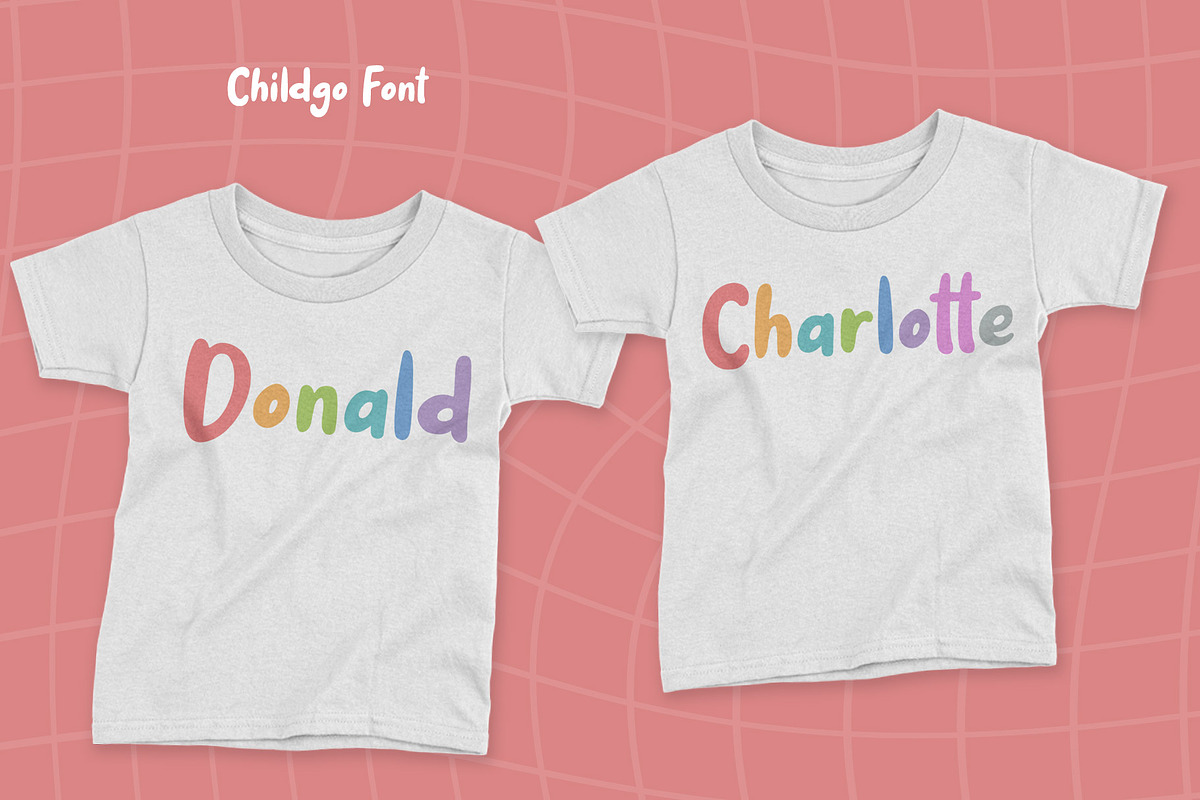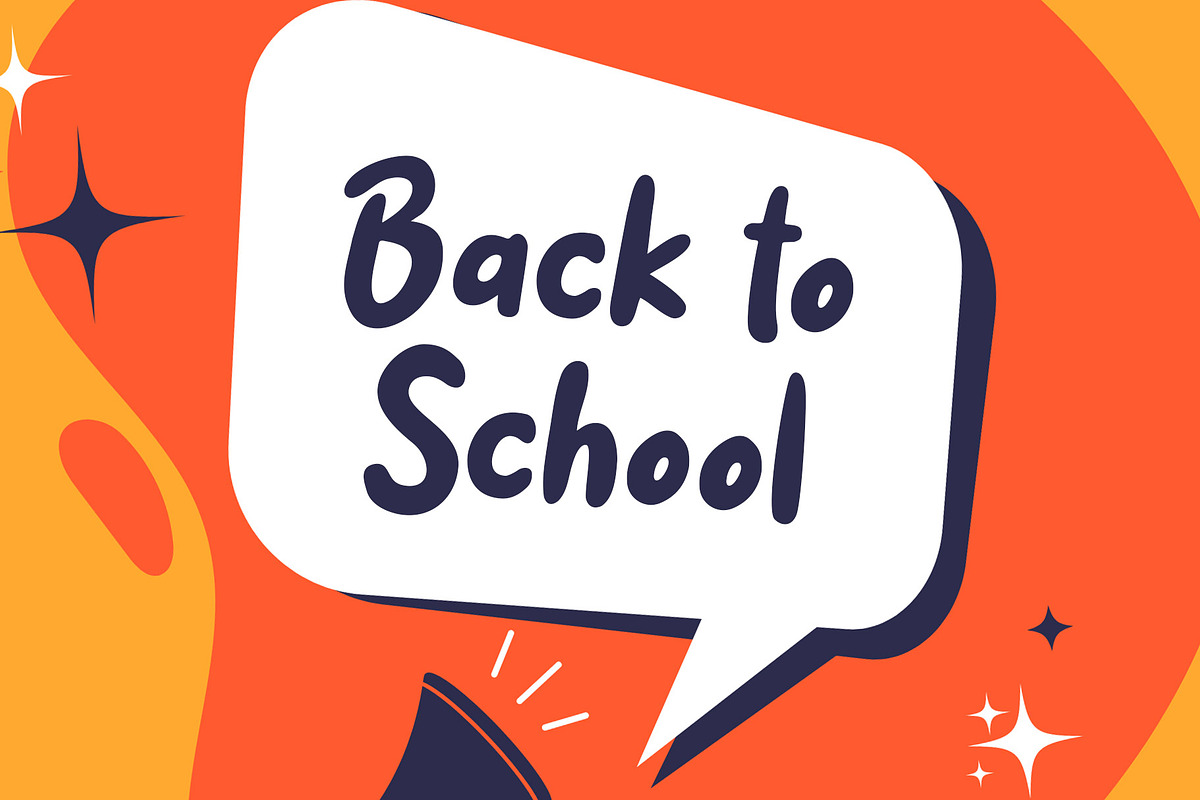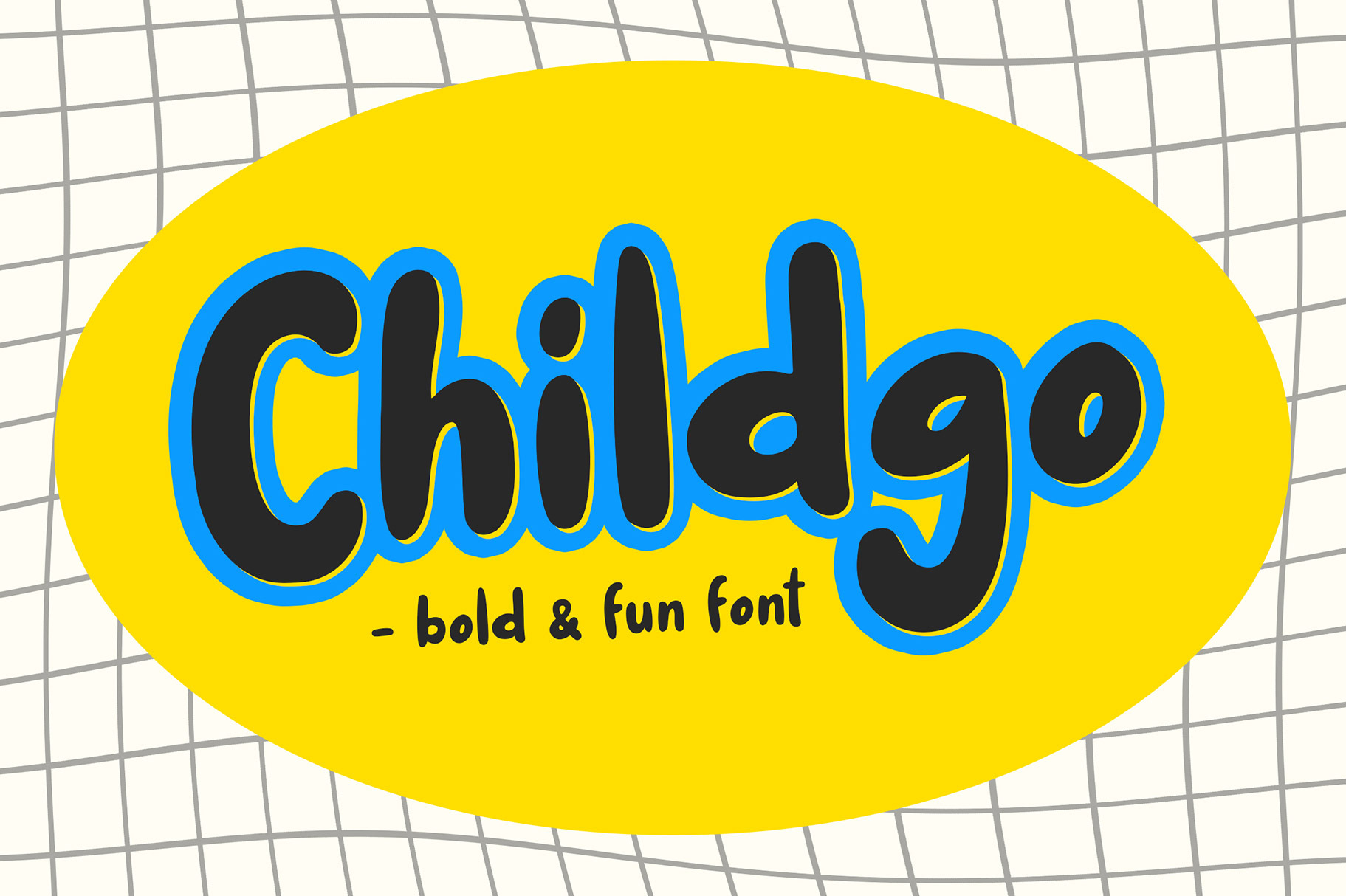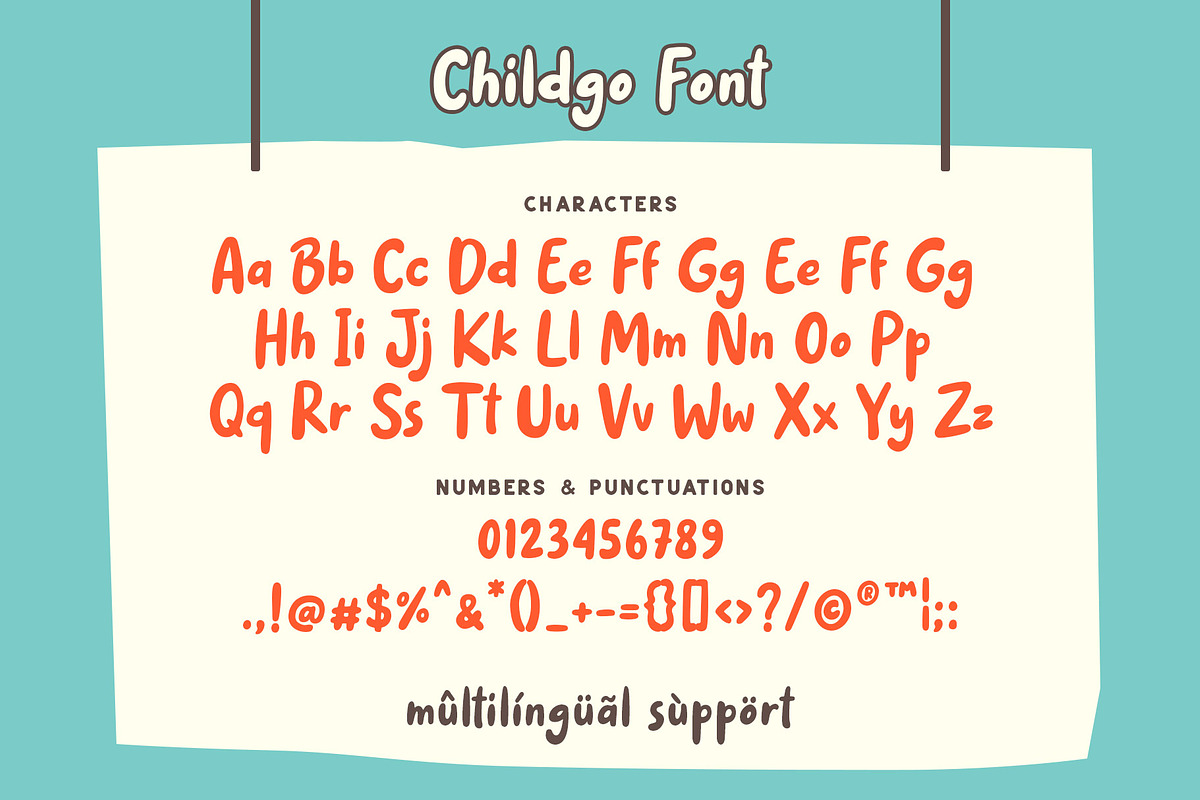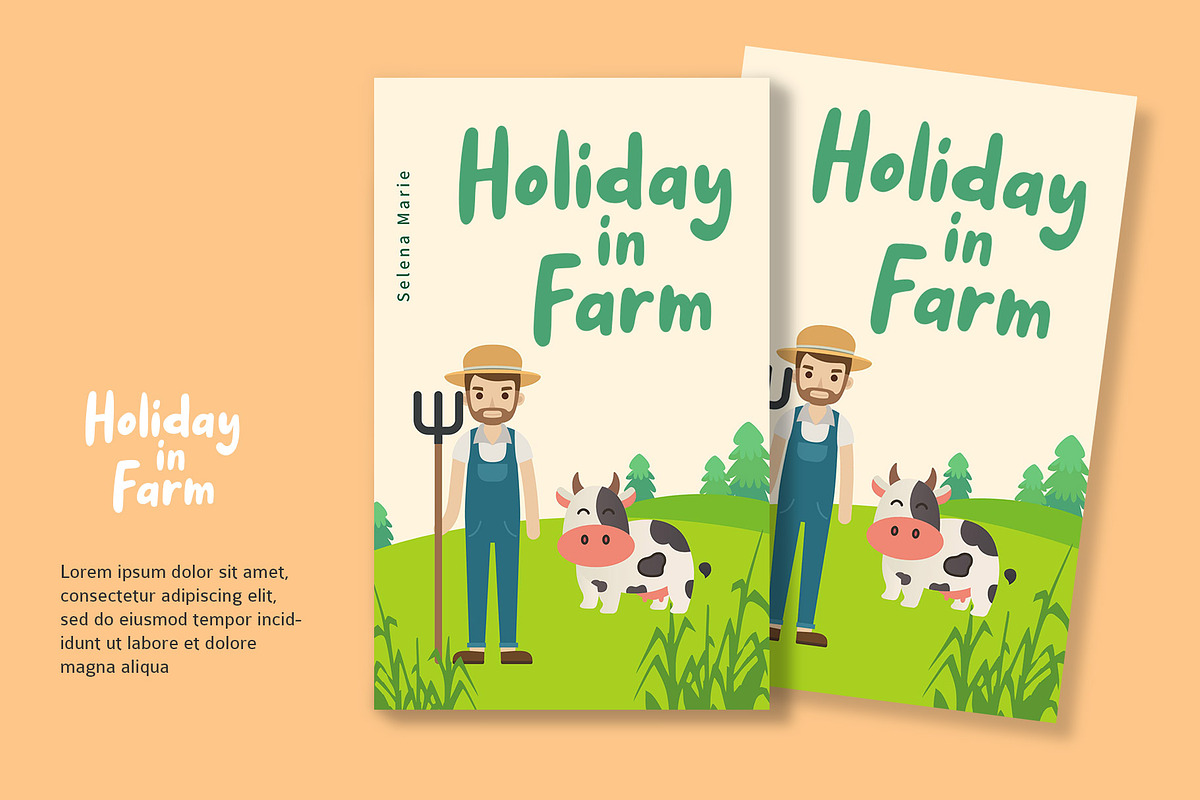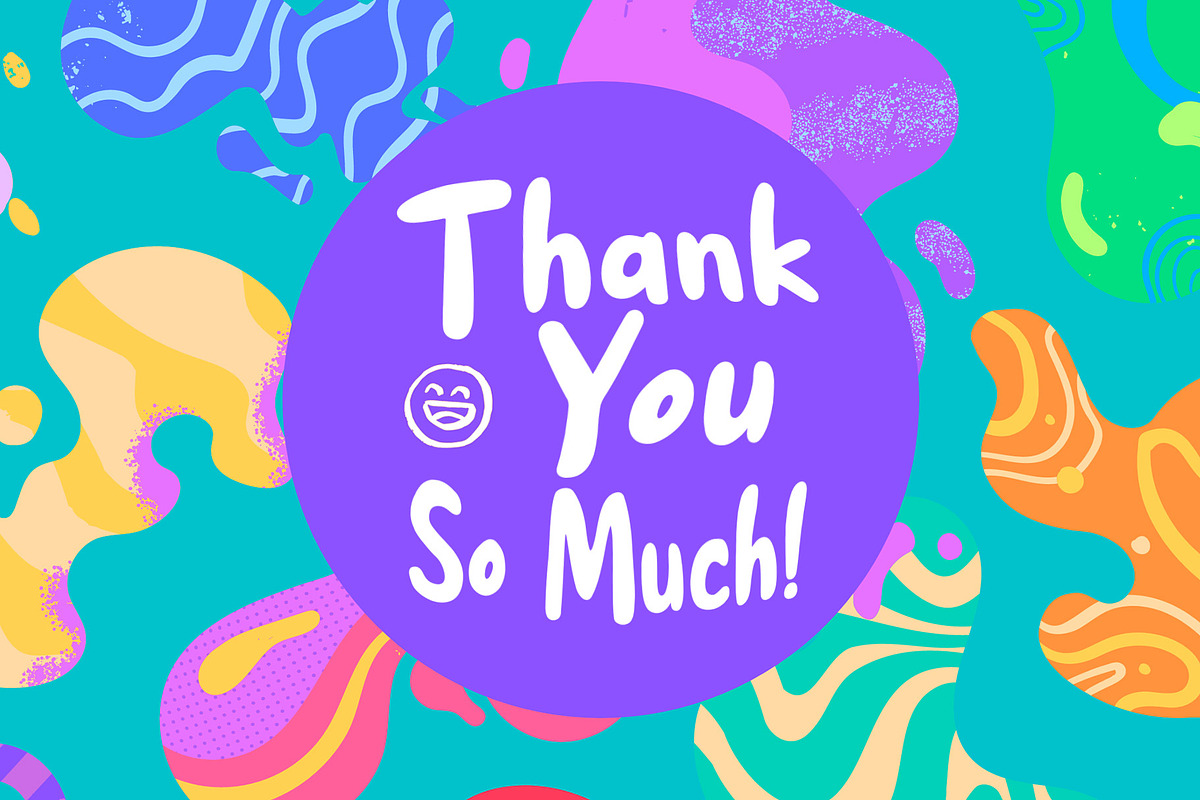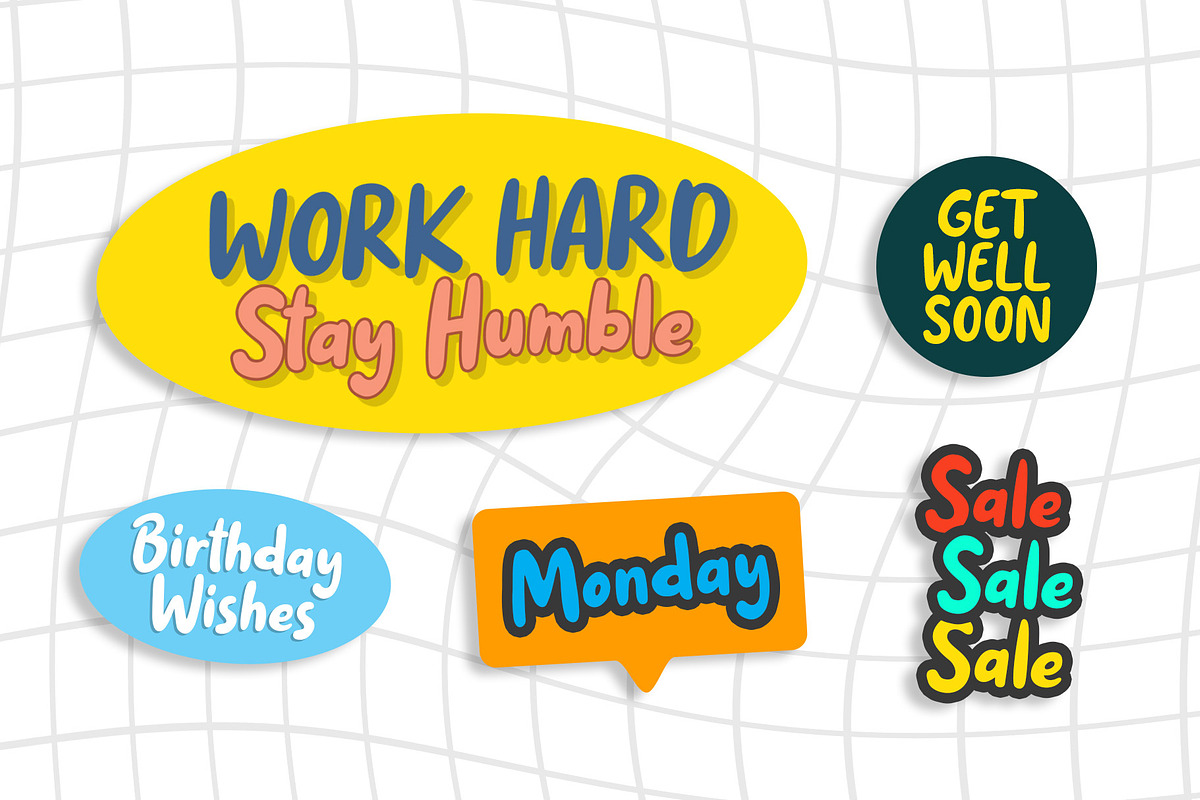
Childgo - Bold and Fun Font
Hello, introducing Childgo - Bold and Fun Font, a sans serif font inspiring from bouncy bold style.
And this font is perfect for design that makes it more playful like logo, branding, poster, apparel, title, social media post, merchandise, book cover, product packaging, handwritten quotes, and advertising.
This font comes in uppercase, lowercase, punctuations, symbols & numerals, and multilingual support.